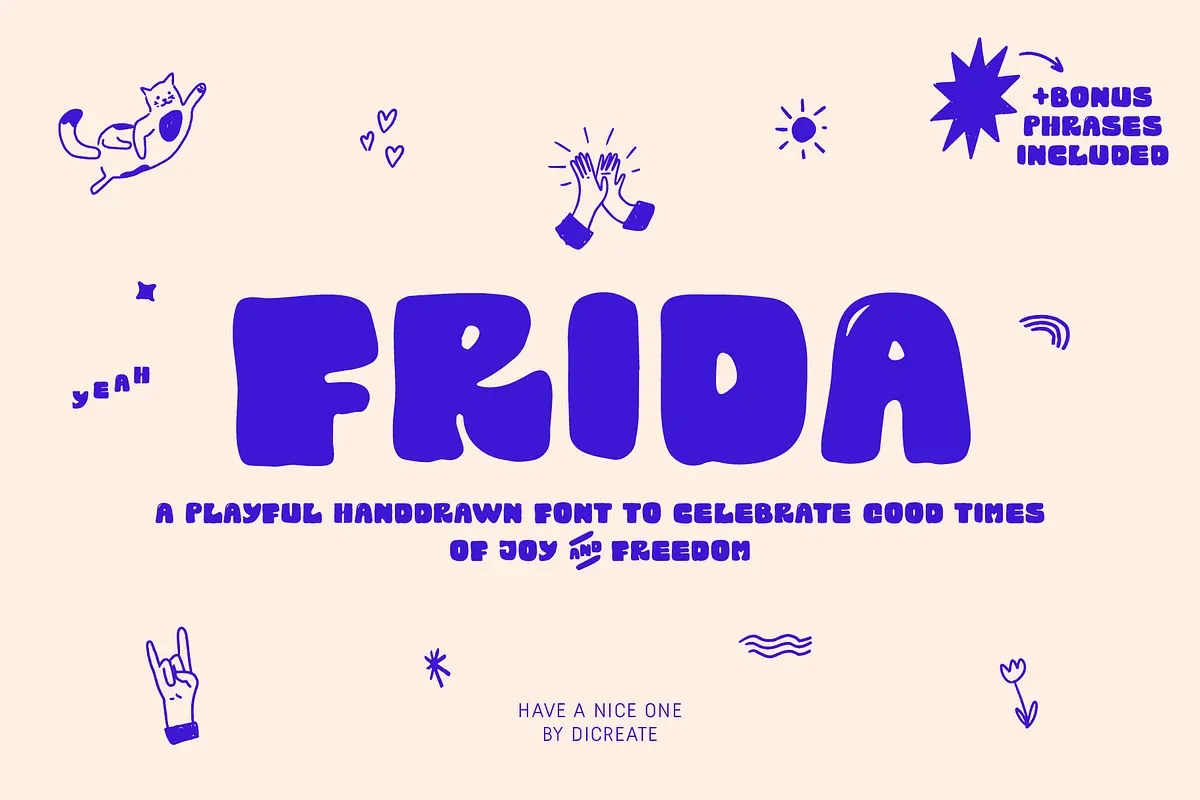
Frida Font Free Download is a playful and cheerful typeface full of personality and charm. With its quirky curves, friendly letterforms, and hand-drawn vibe, Frida is perfect for kids' projects, fun branding, greeting cards, social media graphics, and any design that calls for a lighthearted, whimsical touch.
Frida’s casual style is both inviting and expressive, making it a great choice for headlines, short quotes, and creative display use. The font includes uppercase and lowercase letters, numerals, and basic punctuation—ideal for colorful, happy layouts that stand out.
Whether you're designing for a children's brand or creating something cute and crafty, Frida Font Free Download is a delightful option to test in personal projects. Be sure to grab the correct license for any commercial use. Add a splash of fun and personality to your designs with this playful, feel-good font!